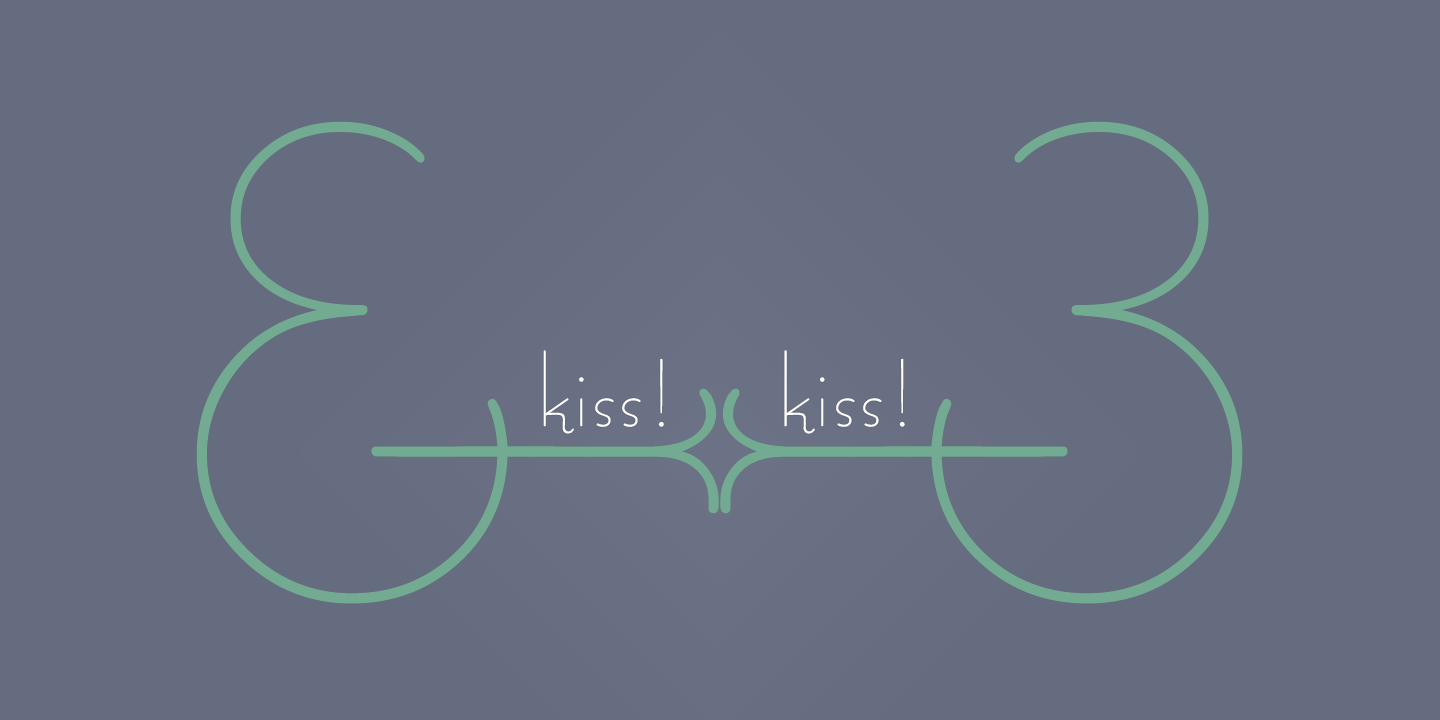
Bernhard Fashion Font is ideal for haute couture fashion magazines, luxury fashion house branding, elegant runway show materials, sophisticated beauty campaigns, high-end boutique signage, premium fashion catalogs, exclusive designer collections, and upscale fashion event invitations.
This font is exciting because it embodies the timeless sophistication of haute couture with graceful, elongated letterforms that capture the essence of fashion elegance and sartorial refinement. The Bernhard Fashion Font represents the intersection of artistic typography and fashion excellence, transforming ordinary text into stylish statements that resonate with the discerning taste of fashion connoisseurs and luxury consumers.
The Bernhard Fashion Font family includes fashion-forward variations such as Regular, Bold, Light, Italic, Elegant, Condensed, Extended, and Couture versions, providing fashion designers with comprehensive tools to create sophisticated typography that reflects the glamour and artistic vision of high-fashion communications and luxury brand presentations.
Embrace fashion sophistication with Bernhard Fashion Font Free Download that brings haute couture elegance to every luxury fashion project. This stylishly crafted typeface combines fashion industry aesthetics with contemporary functionality, making it perfect for fashion houses, luxury retailers, and style-conscious brands targeting sophisticated fashion audiences. The font's elegant character design ensures your message conveys fashion authority while maintaining excellent readability across all luxury applications. Whether you're developing fashion brand identities, creating runway presentation materials, or designing marketing campaigns for luxury fashion products, Bernhard Fashion Font delivers the sophisticated typography that speaks to fashion-forward audiences who appreciate style, quality, and the timeless appeal of couture craftsmanship. Its versatile design works beautifully across digital and print media while preserving the fashion-forward elegance that makes luxury fashion communications feel genuinely sophisticated and worthy of the style-conscious consumers who define fashion trends and appreciate exceptional design quality.